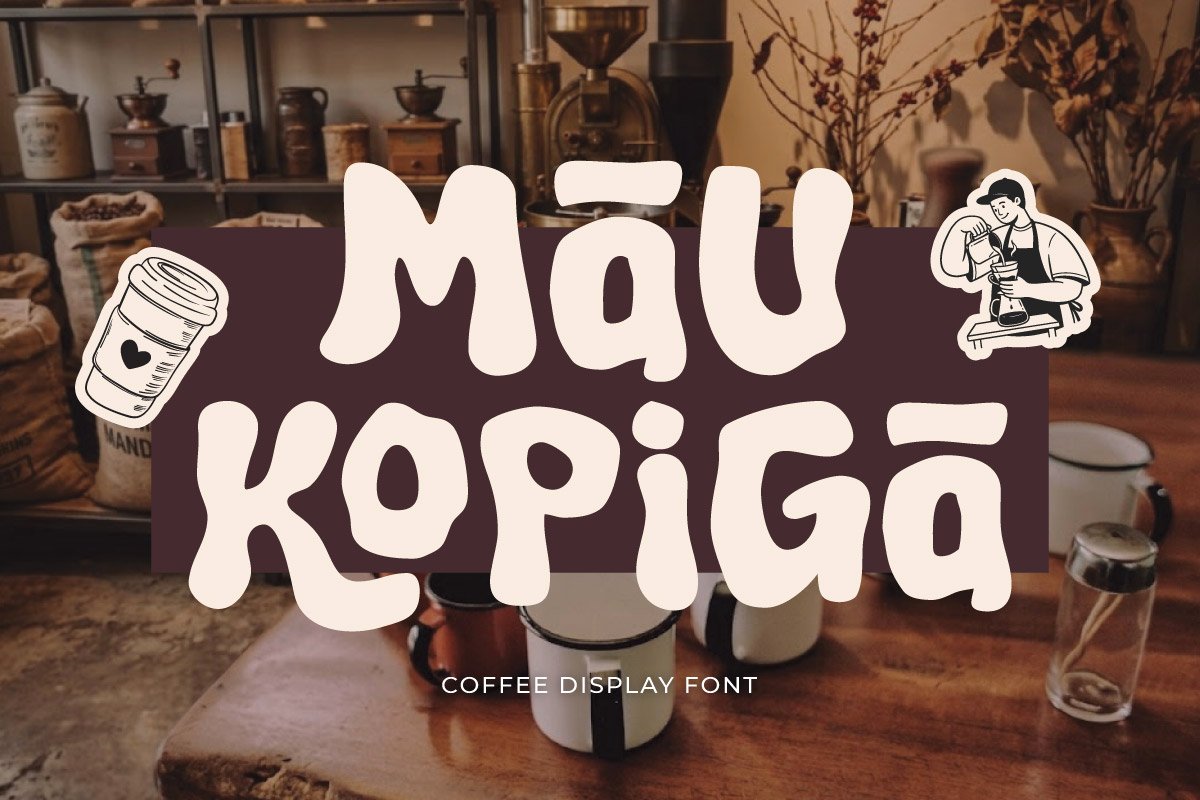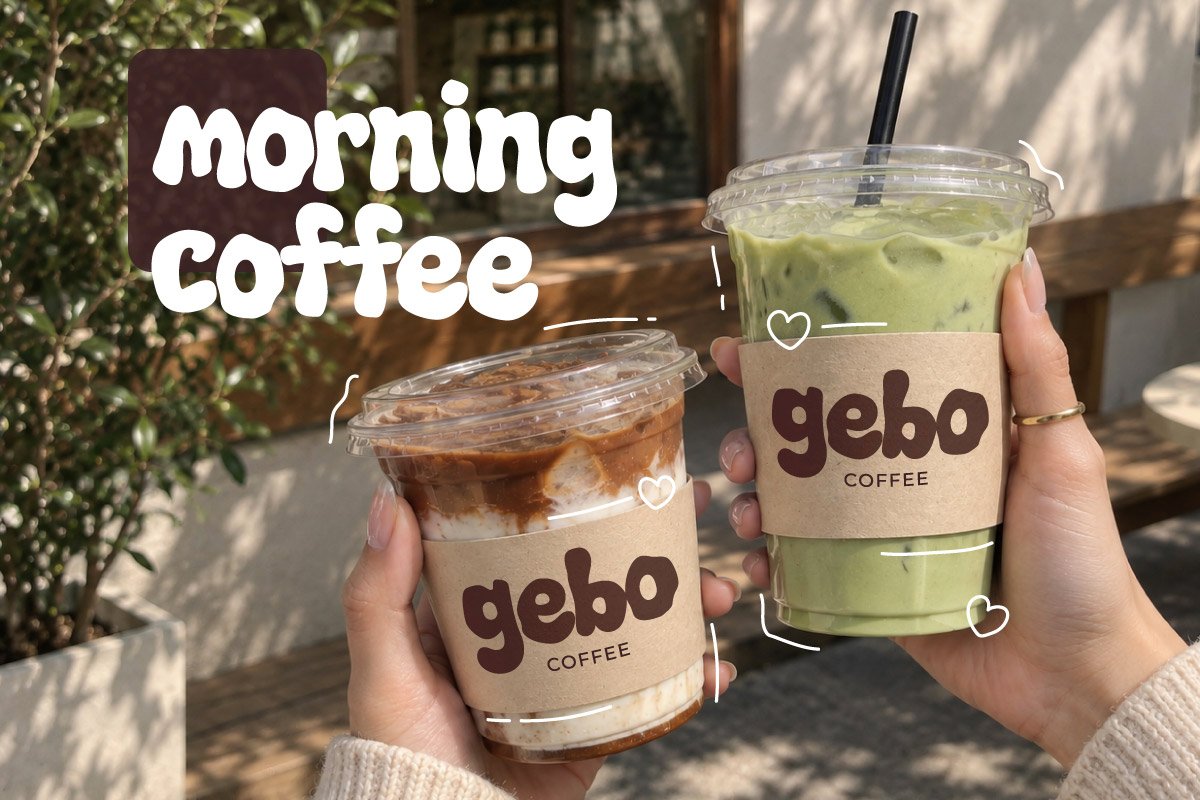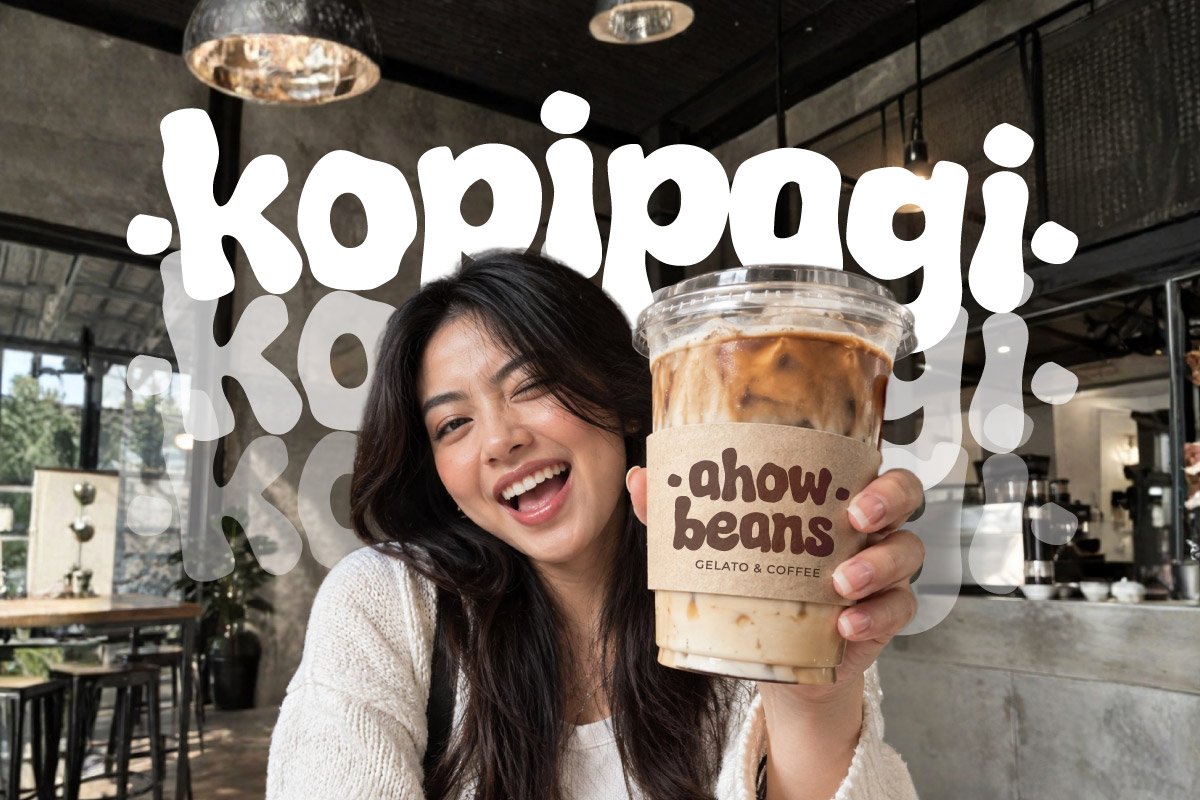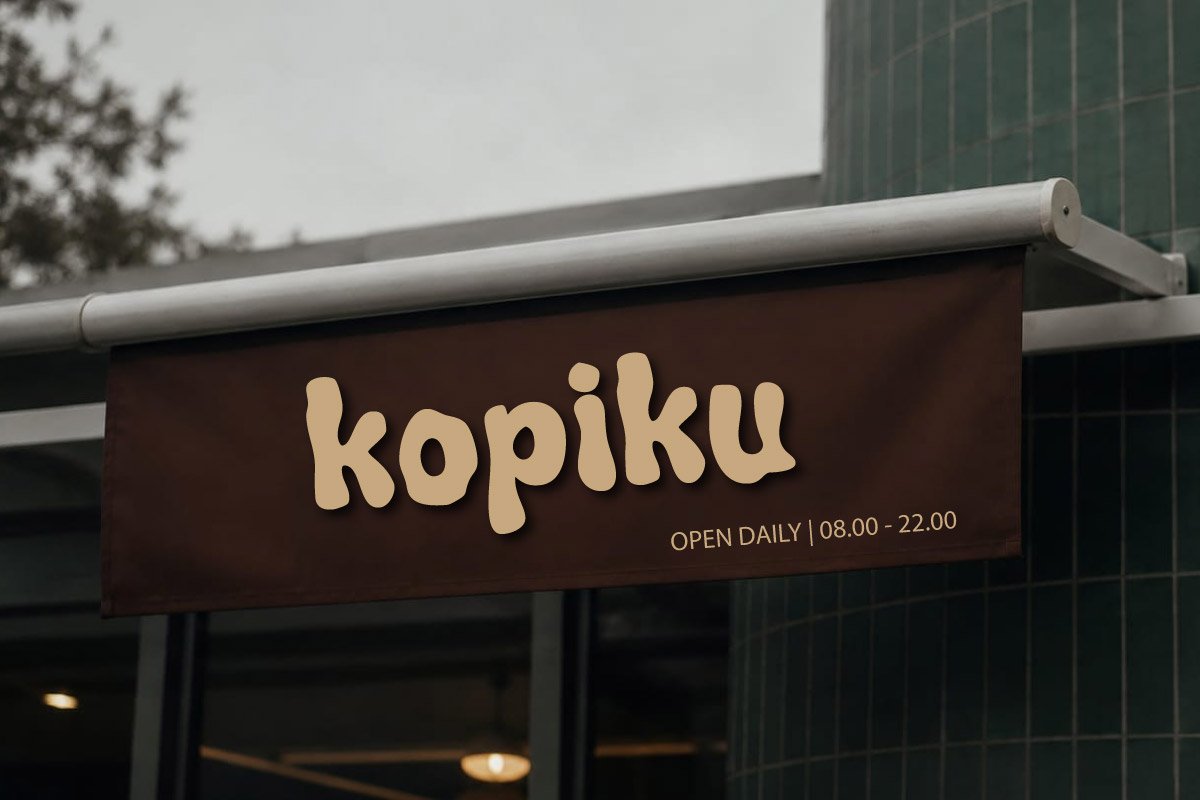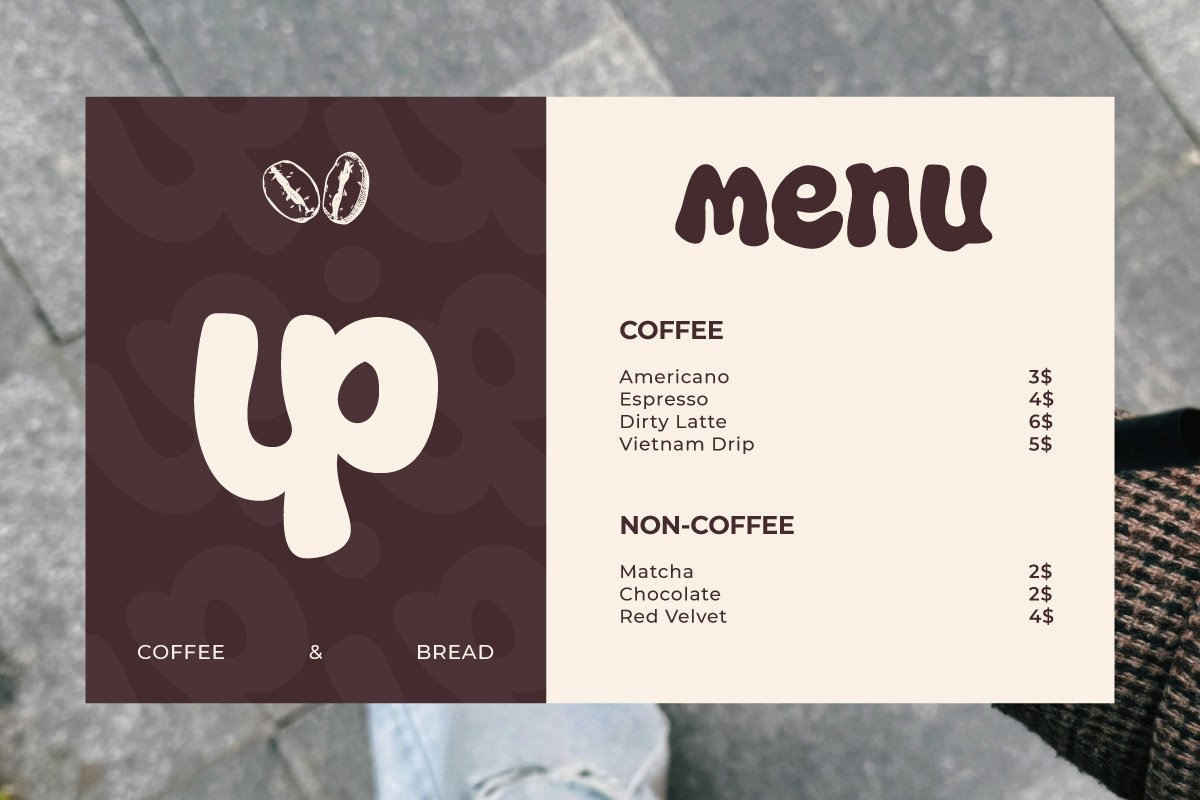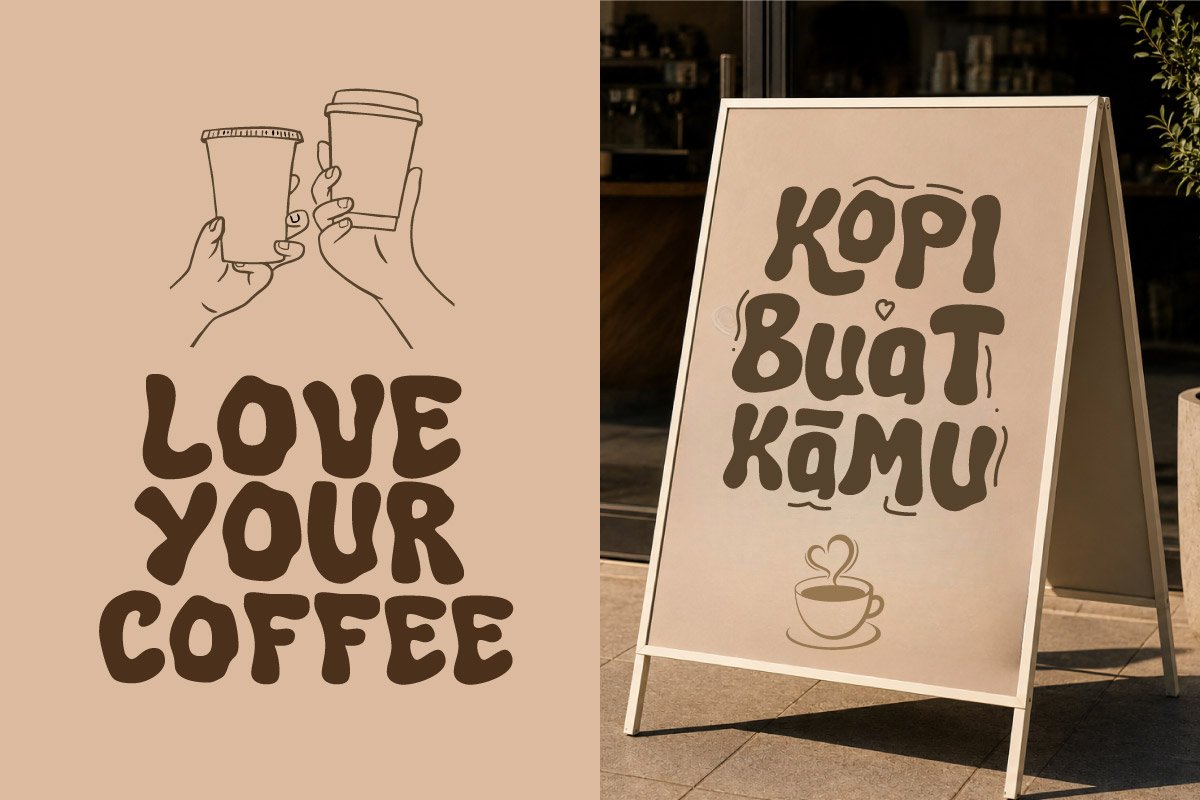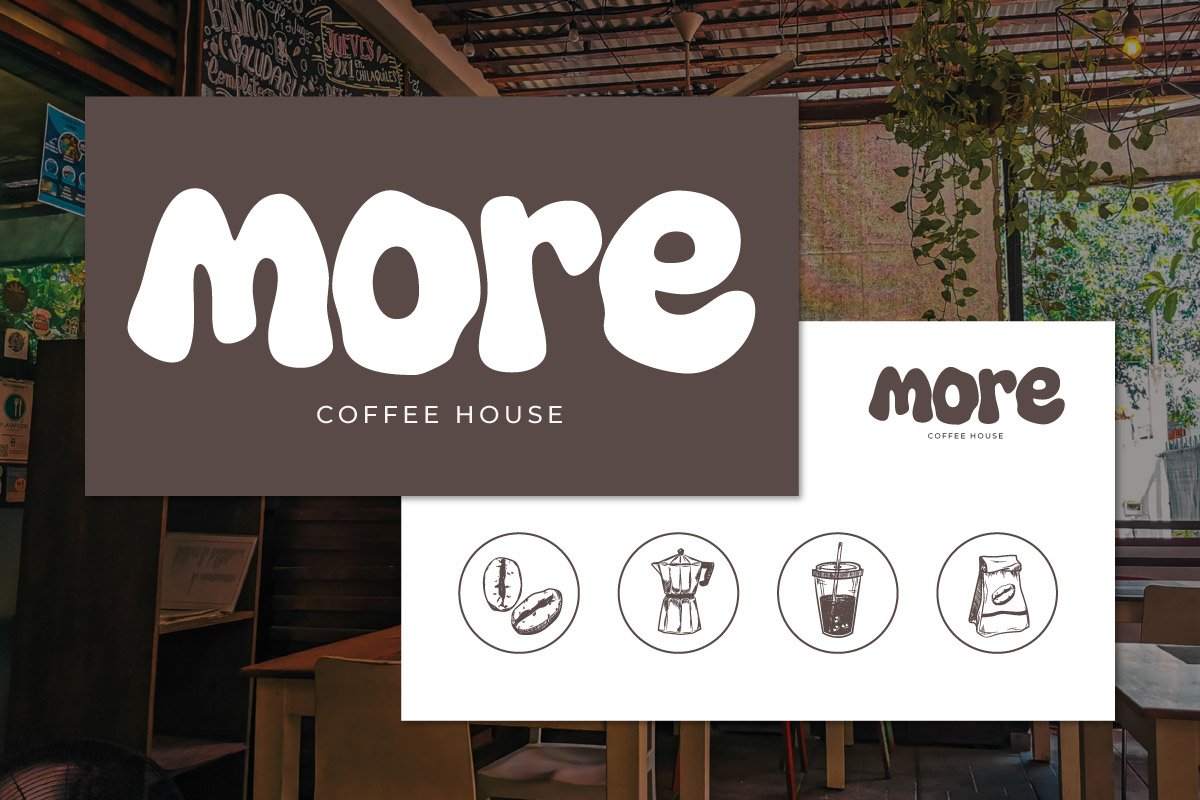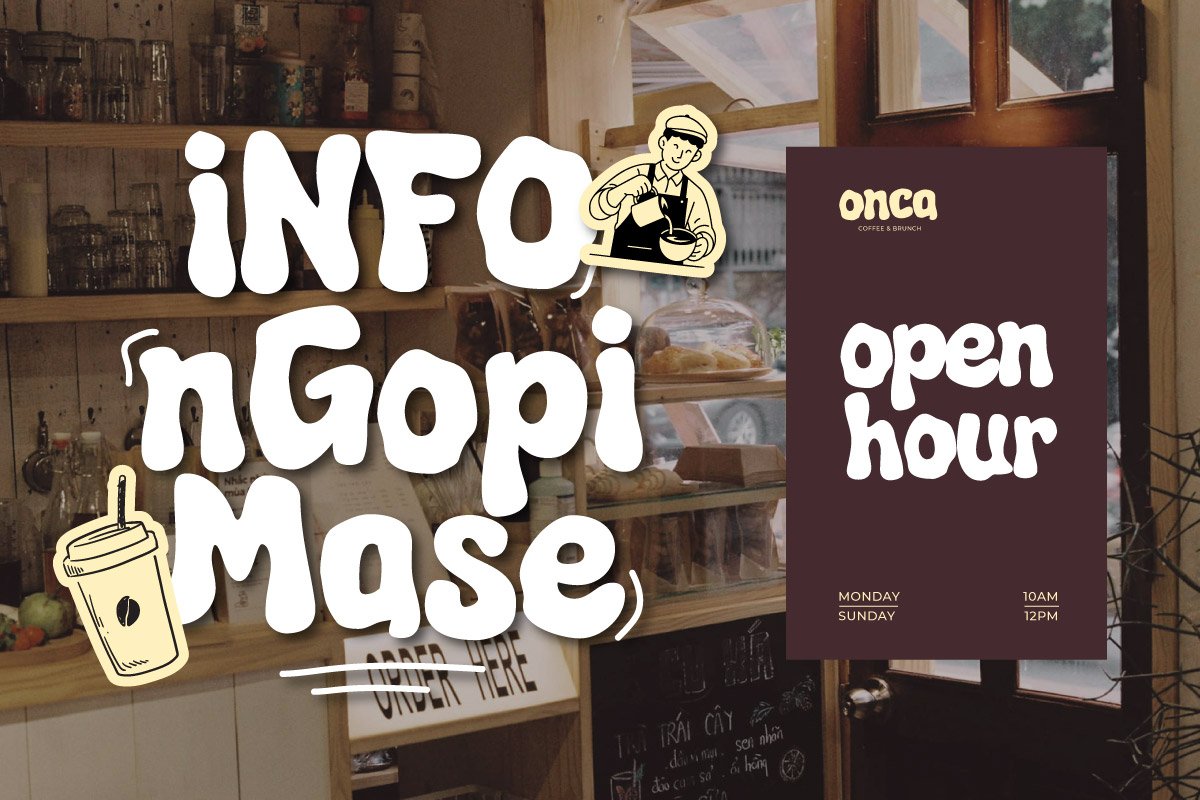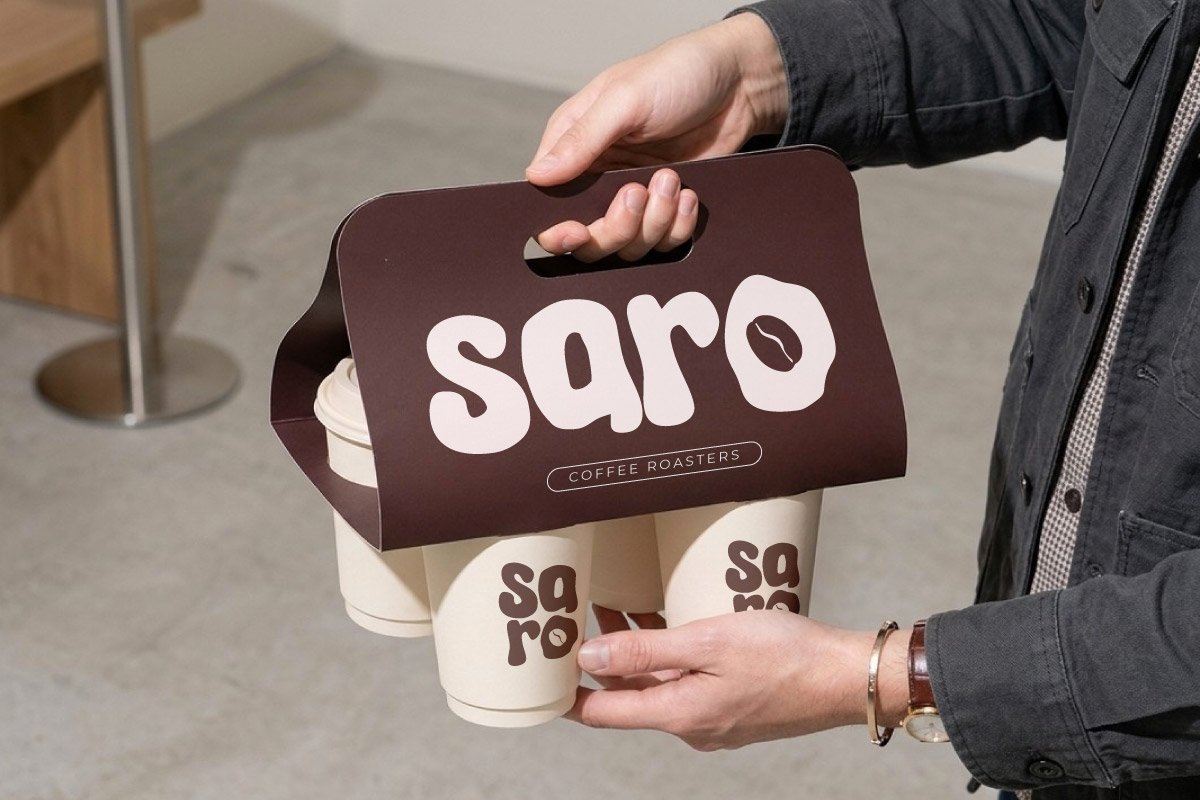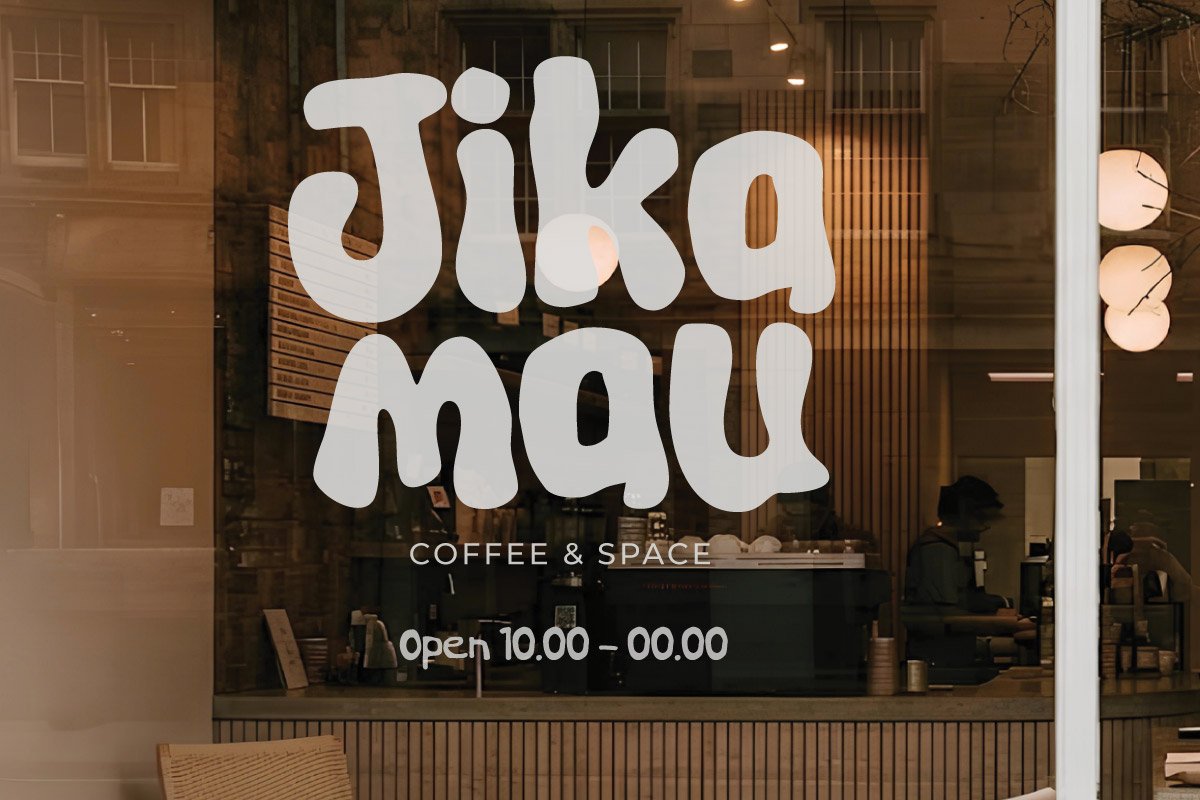
Mau Kopiga – Playful Coffee Display Font
Mau Kopiga is a playful and friendly display font crafted to capture the cozy, welcoming essence of modern coffee shops and artisanal bakeries. Featuring thick, soft-rounded letterforms and an organic handcrafted feel, this typeface delivers an inviting visual tone for any culinary brand.
Designed with versatility in mind, Mau Kopiga excels across cafe logo designs, local roastery packaging, bakery labels, coffee cup sleeves, menu boards, and storefront window graphics. Its high visibility and warm aesthetic ensure your brand stands out effortlessly across both print and digital applications.
Complete with uppercase and lowercase letters, numbers, punctuation, and smooth curves, Mau Kopiga offers endless creative possibilities for graphic designers and business owners looking to elevate their food and beverage branding.